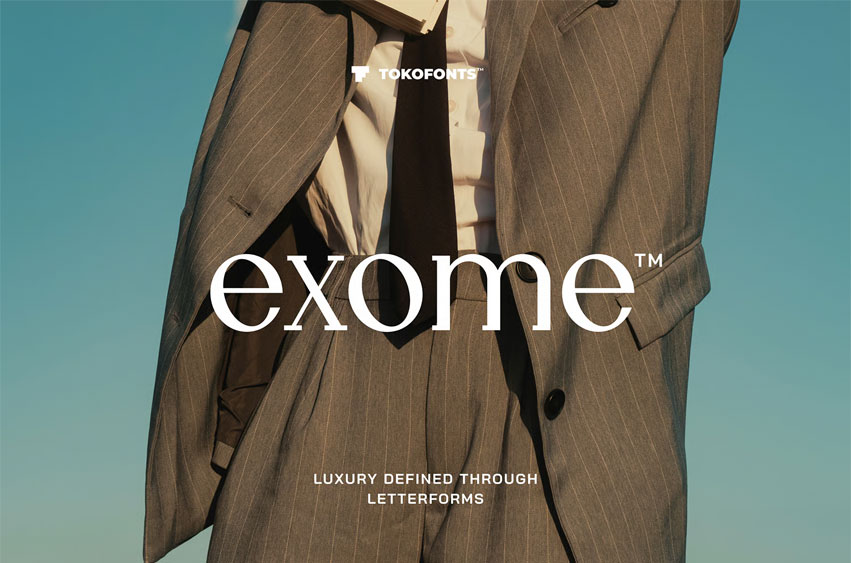
Exome Font
Exome Font is a modern and elegant display typeface designed to deliver a clean and sophisticated look for logo and branding projects. With its refined serif structure and balanced proportions, this font brings a timeless aesthetic inspired by classics like helvetica, montserrat, and futura, while adding a distinctive and luxurious character. It is perfectly suited for fashion brands, corporate identities, and high-end visual designs that require both clarity and style.
Built with versatility in mind, Exome font adapts seamlessly across various creative needs, from minimal corporate layouts to more expressive and stylish compositions. Its clean and minimal design ensures excellent readability while maintaining a strong display presence, making it ideal for logos, editorial work, and modern branding systems. Exome stands among premium fonts that combine elegance, precision, and contemporary appeal for impactful visual identity.